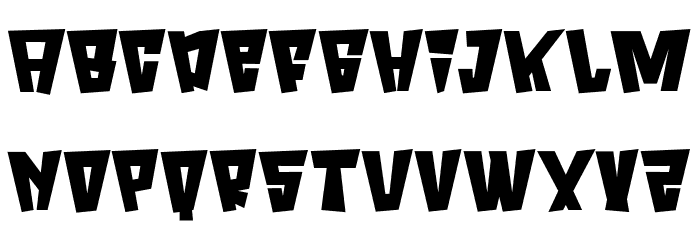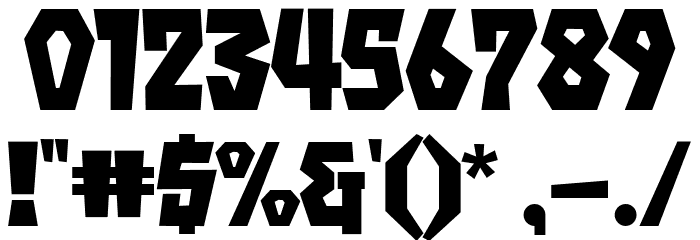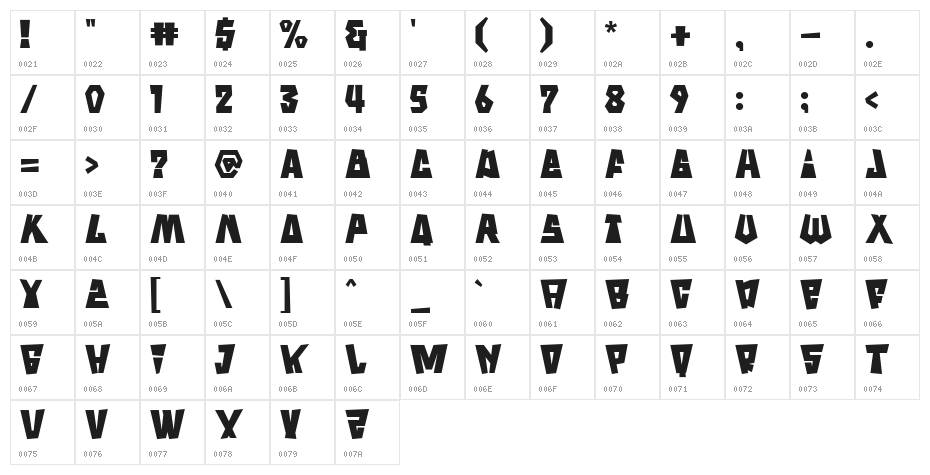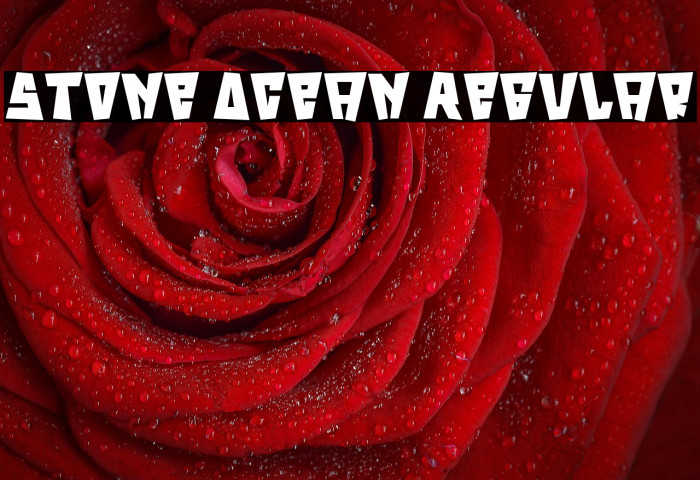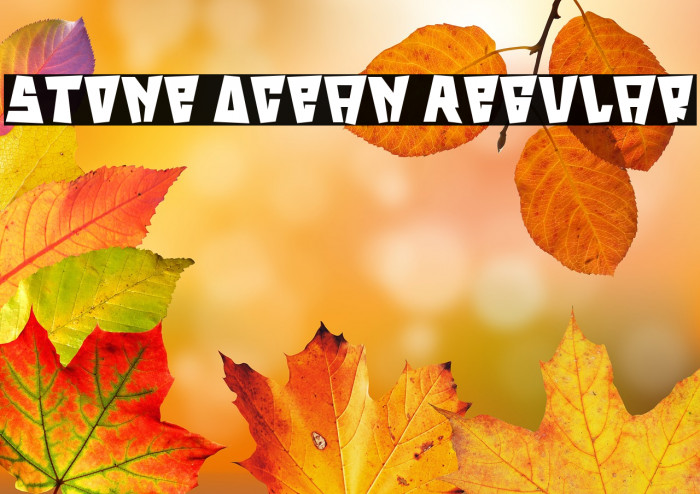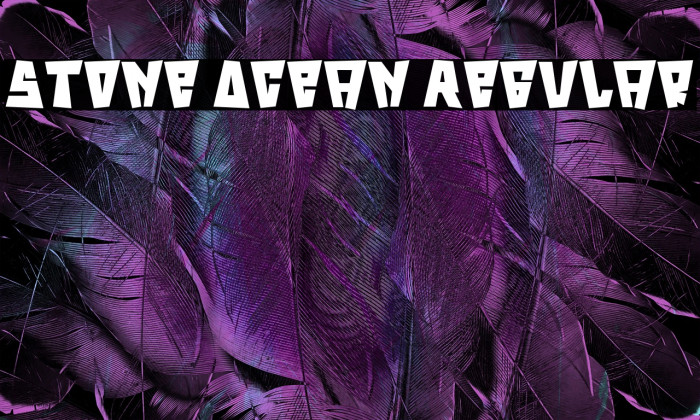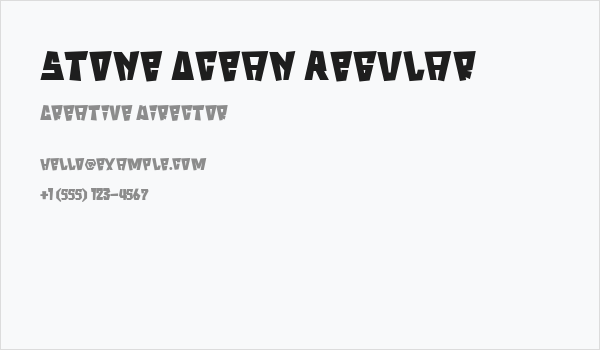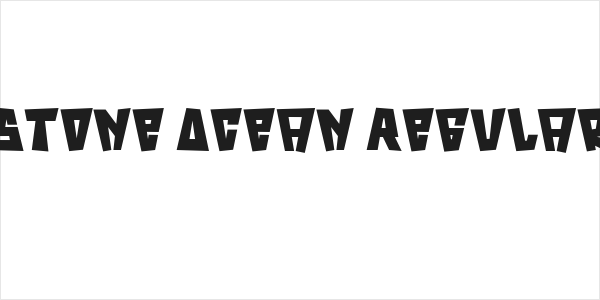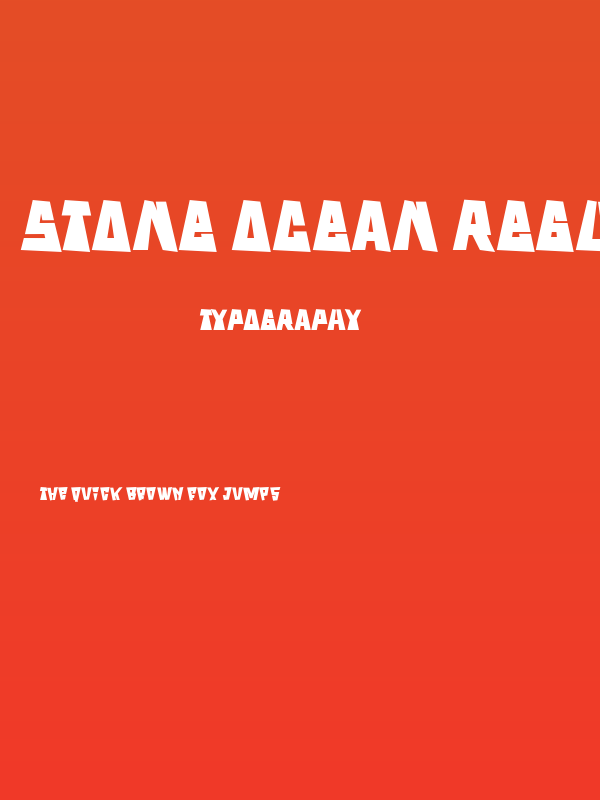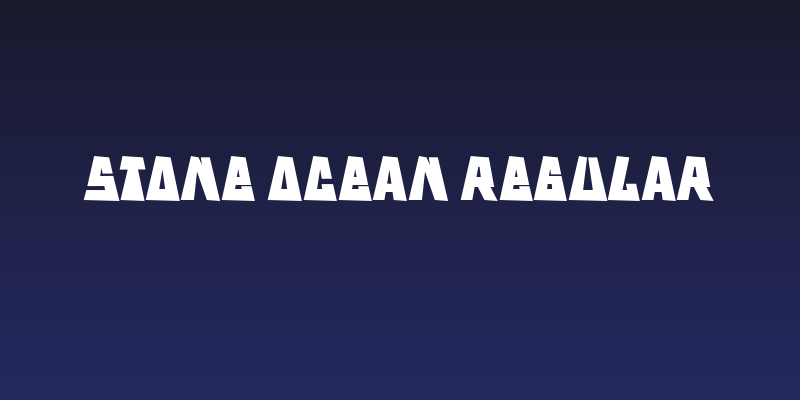
Stone Ocean Regular Font
This font features a bold and angular design with a distinct geometric style. The characters are crafted with sharp edges and a blocky appearance, giving it a strong and impactful presence. The uppercase and lowercase letters maintain a consistent style, with each character exhibiting a unique angular cut that adds to the overall aesthetic. The numbers and special characters follow the same design principles, ensuring uniformity across the font. This typeface is ideal for projects that require a modern and edgy look, making it suitable for headlines, posters, and branding materials.
A bold, angular font with a geometric and modern design.
- Font: Stone Ocean Regular
- Proposed Projects: Ideal for use in headlines, posters, branding, and any project requiring a strong visual impact.